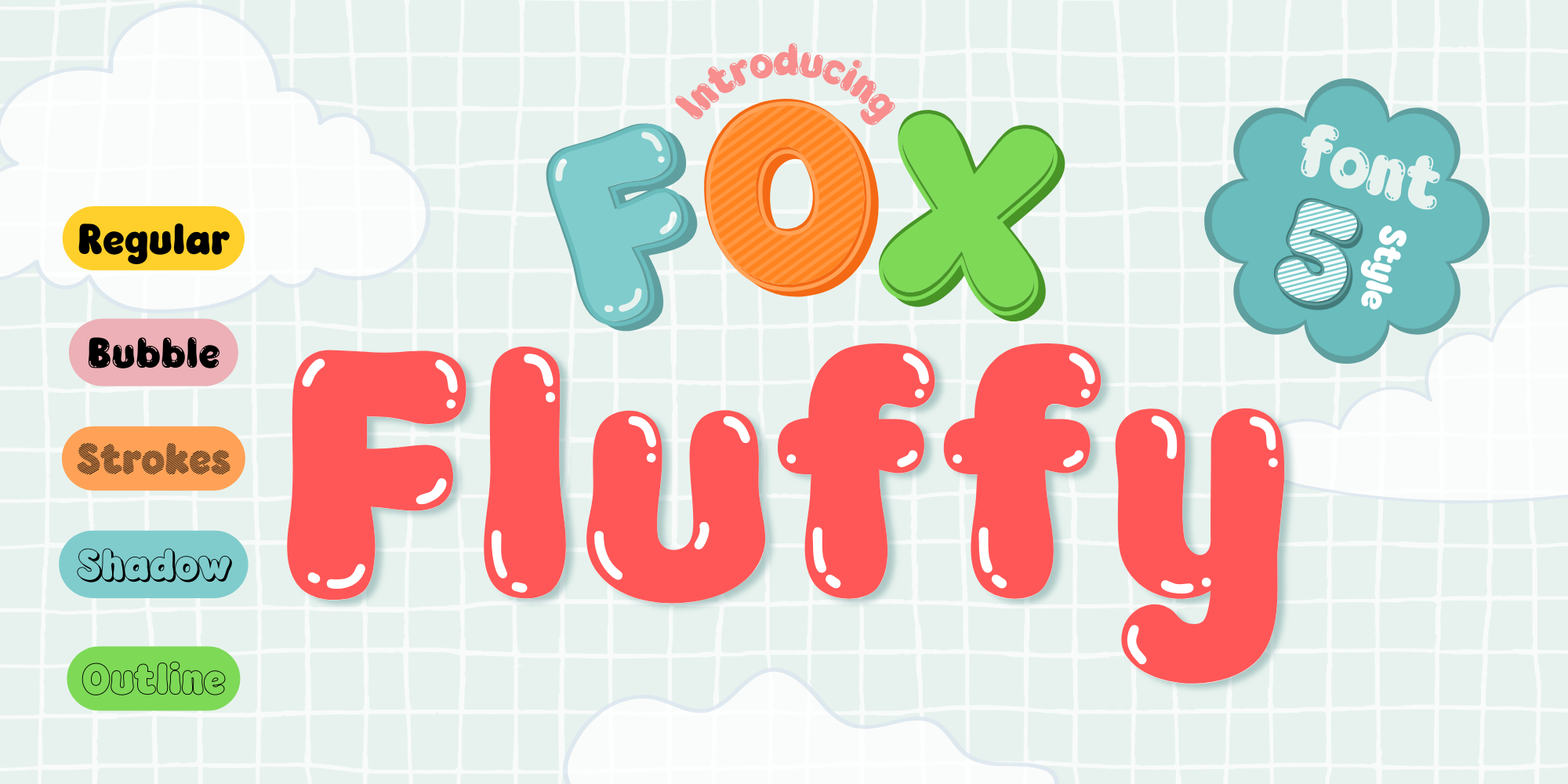
Fox Fluffy Font is perfect for children's book illustrations, adorable pet branding, cozy cafe signage, woodland-themed designs, cute animal product packaging, playful nursery graphics, forest adventure stories, and charming designs that require warm, fuzzy woodland creature aesthetics.
This font is exciting because it captures the endearing charm and playful spirit of forest creatures through its soft, fluffy letterforms that evoke the warmth of woodland adventures and cozy animal tales. The delightful character design embodies the innocence and joy of nature's most beloved creatures, making it perfect for brands seeking to create heartwarming connections with families and nature lovers.
Fox Fluffy Font belongs to the whimsical display font family, featuring woodland styling and adorable elements that enhance its appeal for children's and nature-focused design applications.
Whether you're creating children's entertainment branding or woodland creature graphics, Fox Fluffy Font Free Download delivers maximum cuteness and natural charm. This typeface perfectly balances playful creativity with readable functionality, making it essential for designers working on family-friendly projects that celebrate the wonder of nature. The font's adorable presence works beautifully in children's books, nature education materials, and family branding, providing excellent readability while maintaining its fluffy character that transforms any design with woodland magic and creates memorable experiences across all media platforms and nature communications.